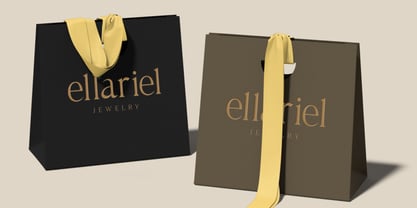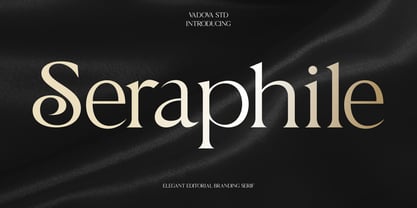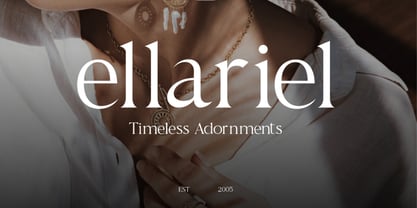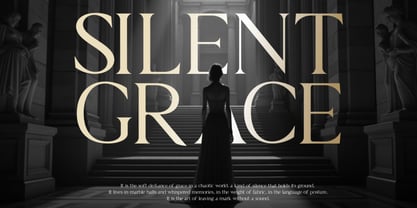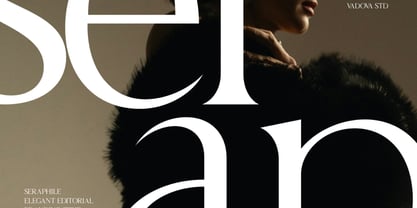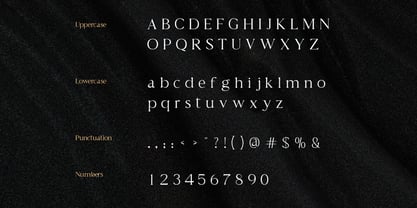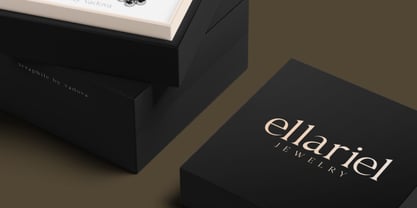
Seraphile
von Vadova Std
Die Schriftfamilie Seraphile wurde von entworfen und von Vadova Std veröffentlicht. Seraphile enthält 1 Stile. Mehr über diese Familie
Seraphile is a high-contrast serif typeface designed for refined elegance and timeless expression. With its graceful curves, sharp terminals, and sophisticated character, Seraphile is ideal for luxury branding, fashion editorials, upscale packaging, and artistic publishing. Seraphile is a go-to choice for designers working on luxury projects that require a touch of refined elegance. It’s especially suited for fashion lookbooks, designer labels, high-end packaging, editorial layouts, art galleries, and upscale product presentations. The font’s commanding presence and editorial elegance make it perfect for establishing visual identity in both digital and print formats.